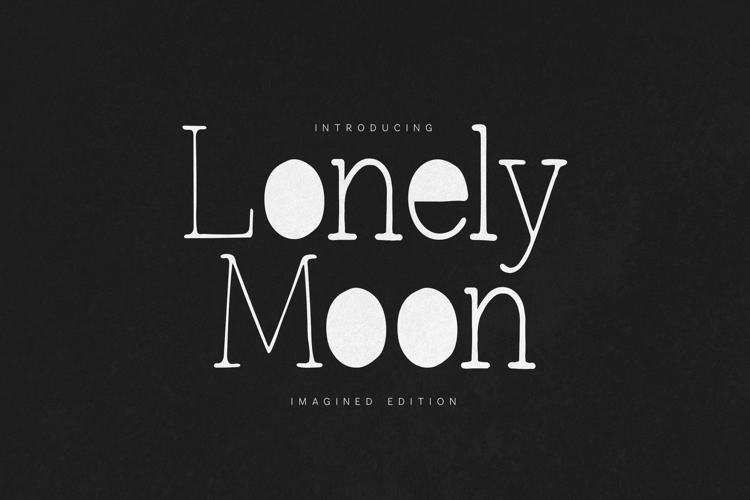
Lonely Moon Soft Poetic Serif Imagined Edition
Lonely Moon is a soft poetic serif font designed for emotional, atmospheric, and expressive typography. With gentle curves, rounded forms, and subtle contrast, Lonely Moon carries a quiet, dreamlike presence that feels intimate and human.
The Imagined Edition leans into softness and imperfection, blending classic serif foundations with playful details and organic rhythm. Its distinctive rounded counters and delicate strokes create a sense of warmth, nostalgia, and calm—ideal for storytelling-driven design.
Lonely Moon works beautifully in editorial layouts, book covers, posters, branding, music artwork, and cultural projects where typography needs to feel reflective, and emotionally resonant. It performs best at medium to large sizes, where its character and texture can fully breathe.